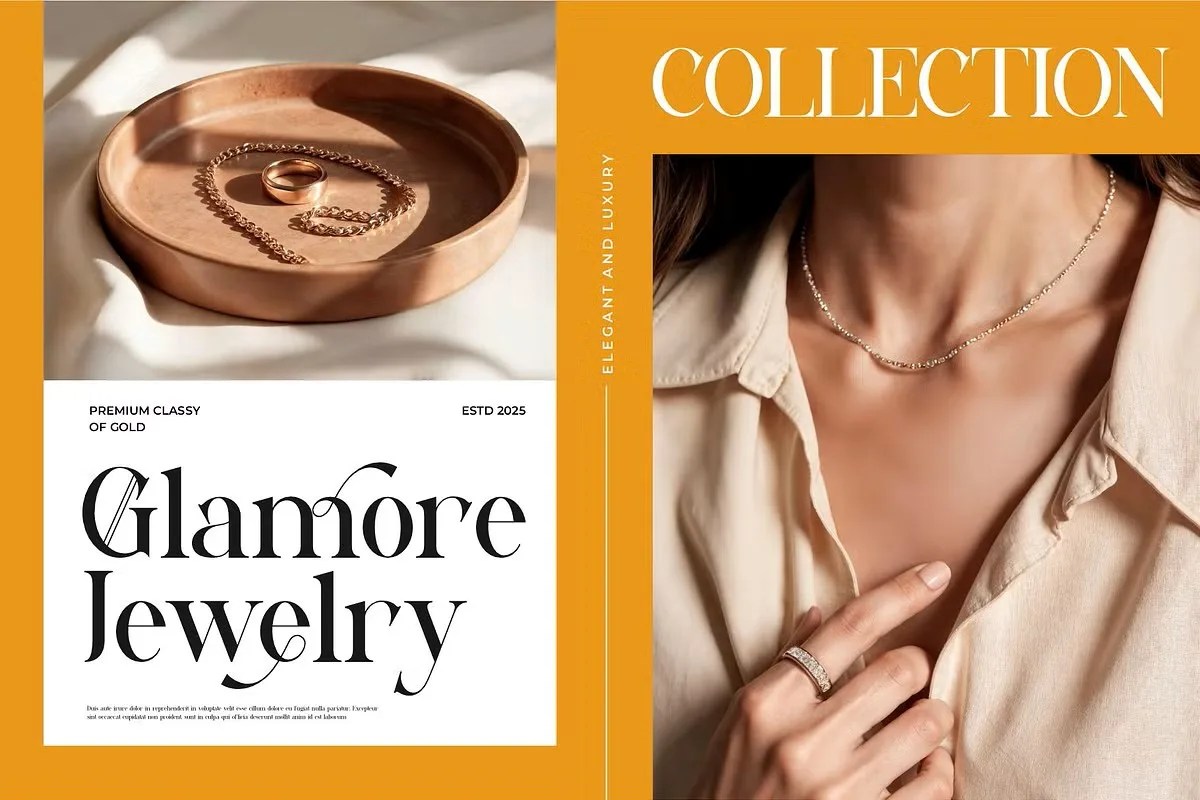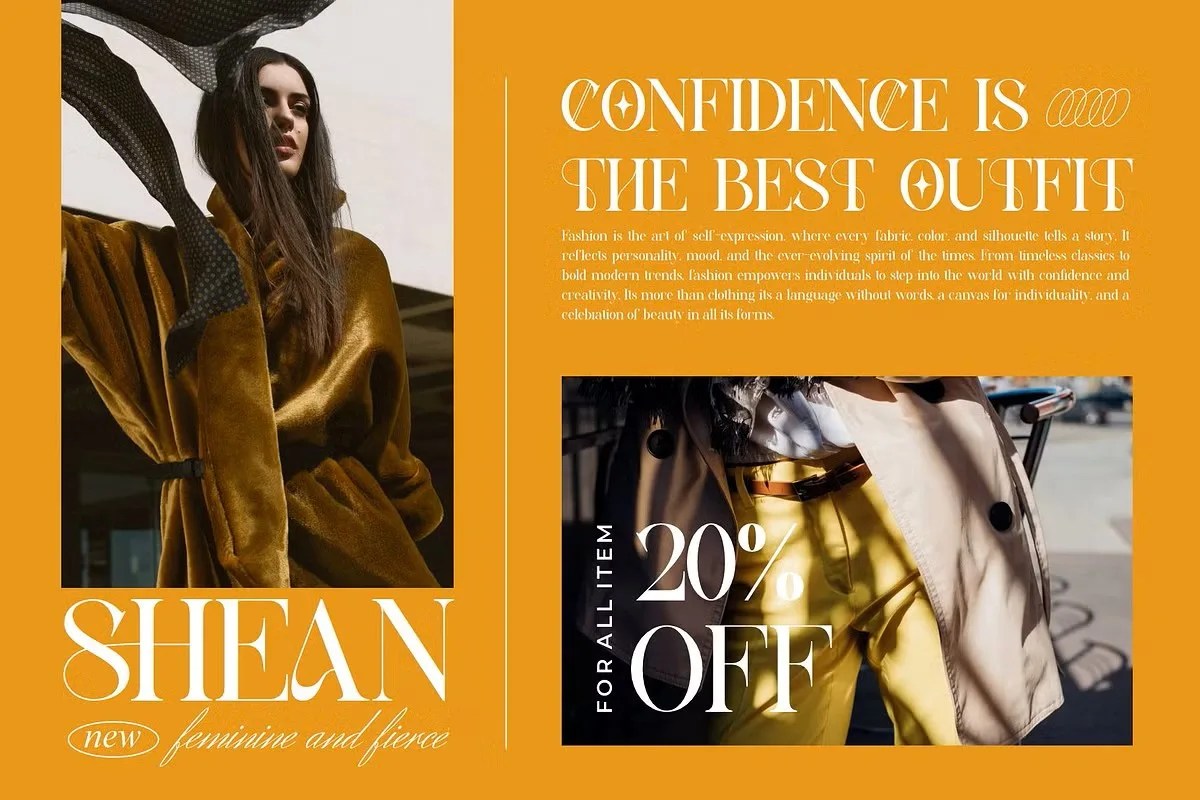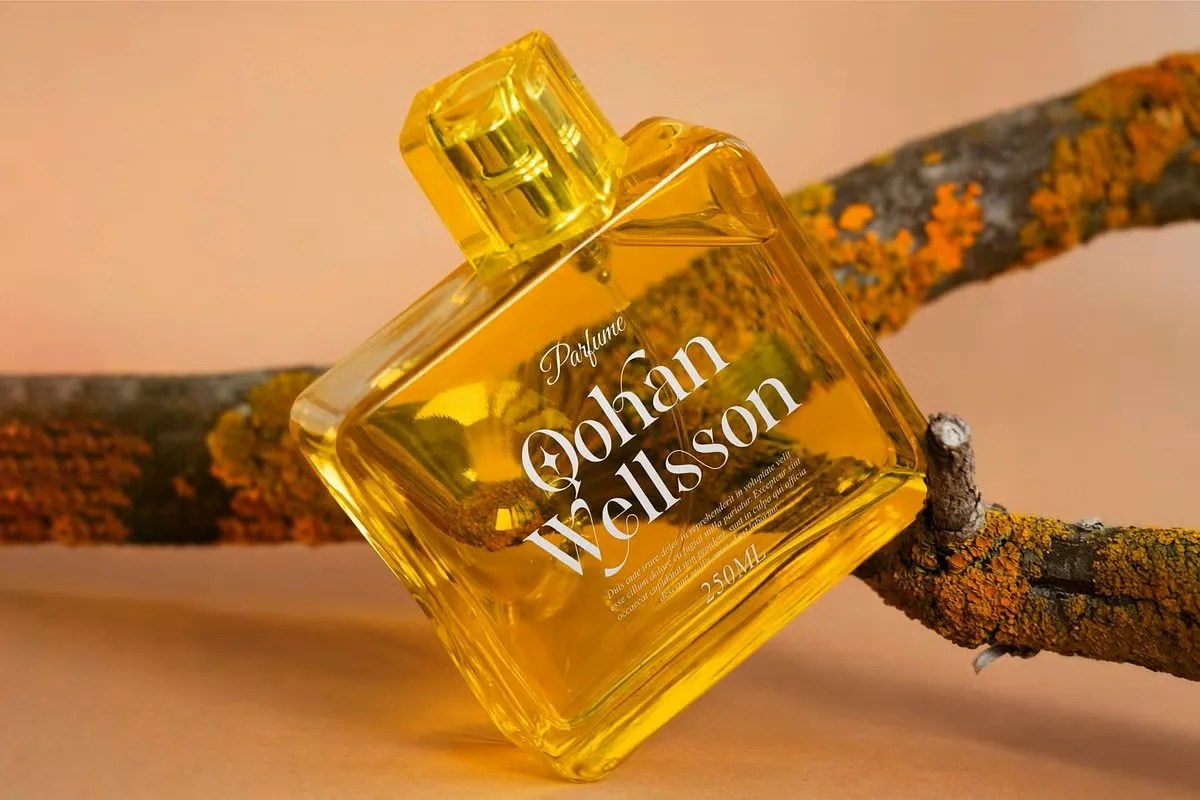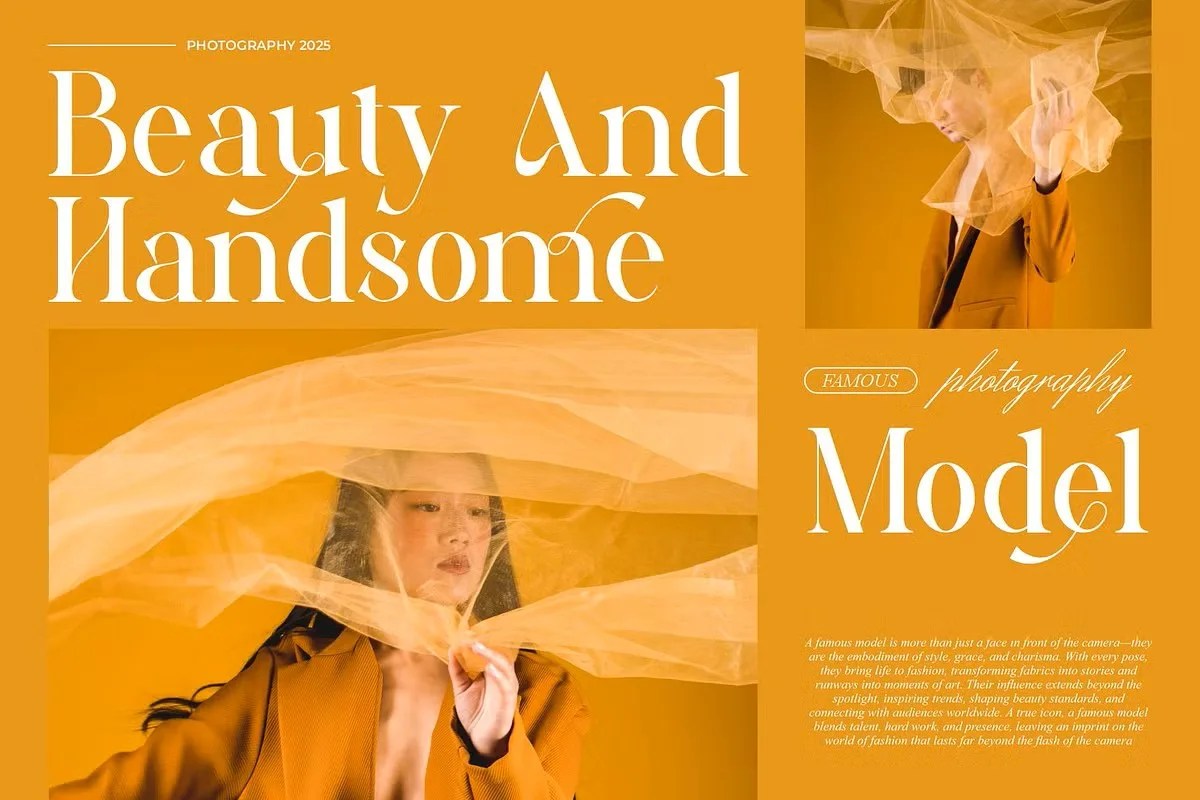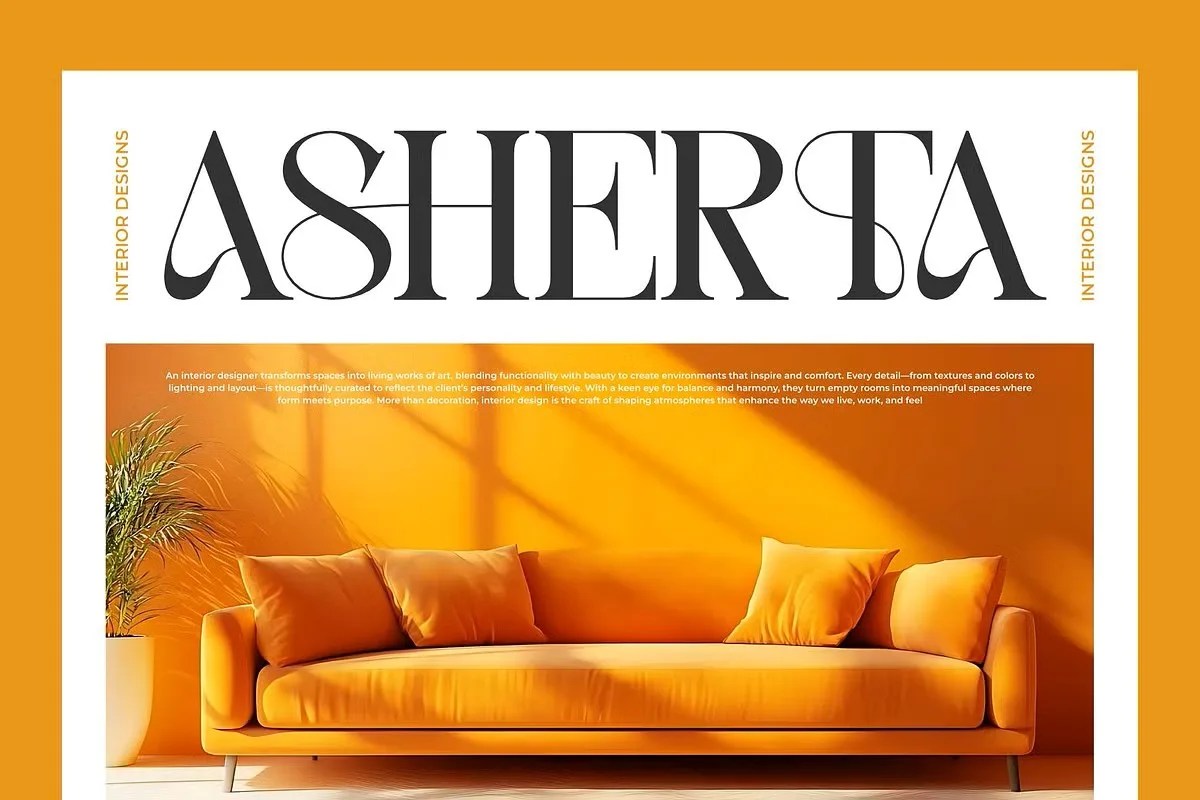
Trafise by Idea Studio. It is a clean and professional serif font. Idea Studio designed this typeface for exceptional clarity and readability in every application. It merges the timeless appeal of traditional serifs with a crisp, modern aesthetic. This makes Trafise a true design workhorse. It is perfect for projects that demand both trustworthiness and an understated style.
This font is an excellent choice for a wide range of formal applications. Specifically, its clarity is perfect for corporate communications. You can use it in an annual report, a business proposal, or a company website to convey professionalism. Furthermore, this professional serif font is a fantastic tool for editorial designers. Use it for the body copy of a magazine or a book to create an engaging reading experience. Its classic yet modern feel also lends itself to sophisticated branding for consultants, law firms, and financial institutions.
• Clean and professional serif style
• Designed for high readability
• Ideal for corporate, editorial, and web use
• Blends traditional and modern aesthetics
Trafise